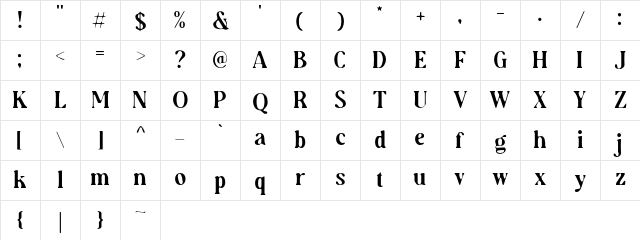
Audrey Mirages DEMO Regular Free Font
Audrey Mirages DEMO Regular
Foundry: Sarid Ezra
Designer: Sarid Ezra
Design Context for Audrey Mirages DEMO
Audrey Mirages DEMO is a composed and adaptable typeface that performs quietly and consistently across a wide range of design contexts.